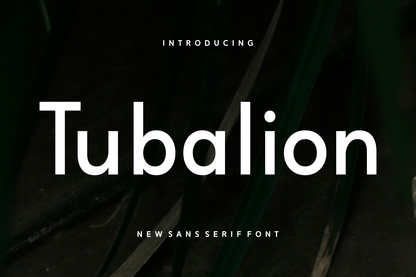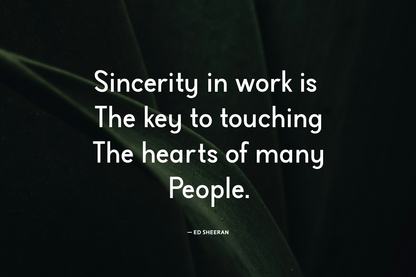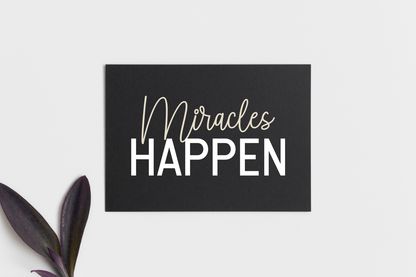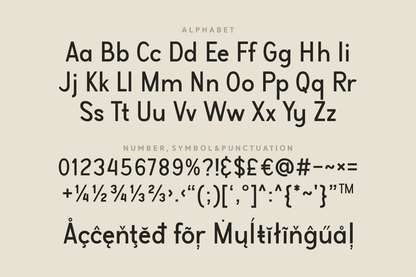
Tubalion is a sleek and contemporary sans serif font designed to deliver maximum clarity with a touch of elegance. Its geometric letterforms are perfectly balanced—featuring clean lines, consistent stroke widths, and smooth curves that lend a modern, minimalistic feel.